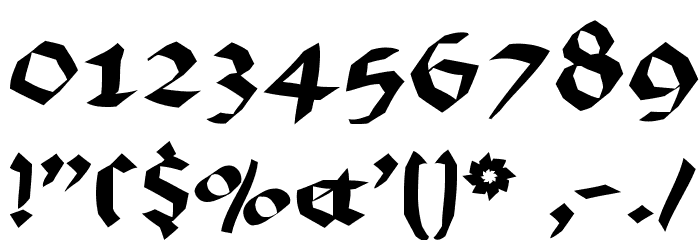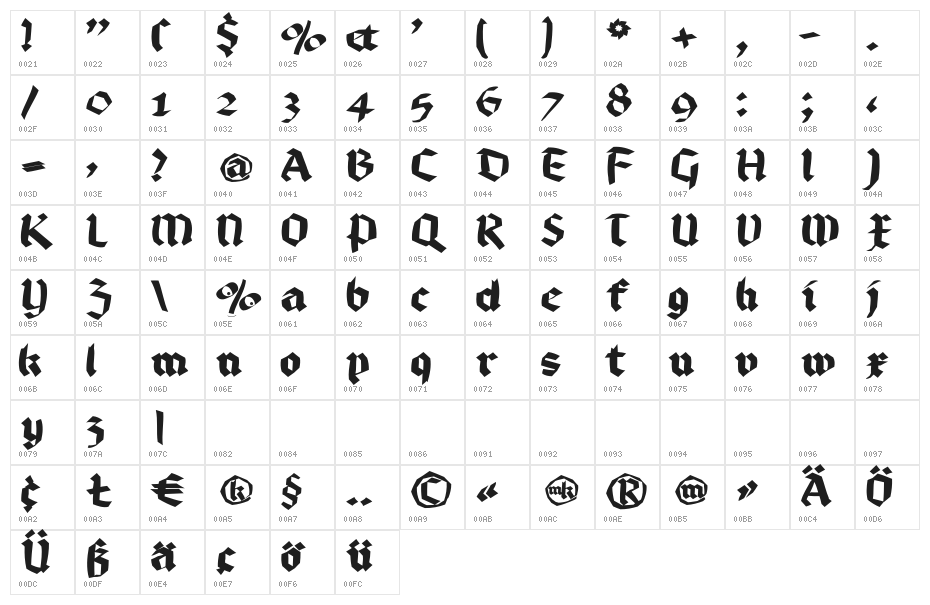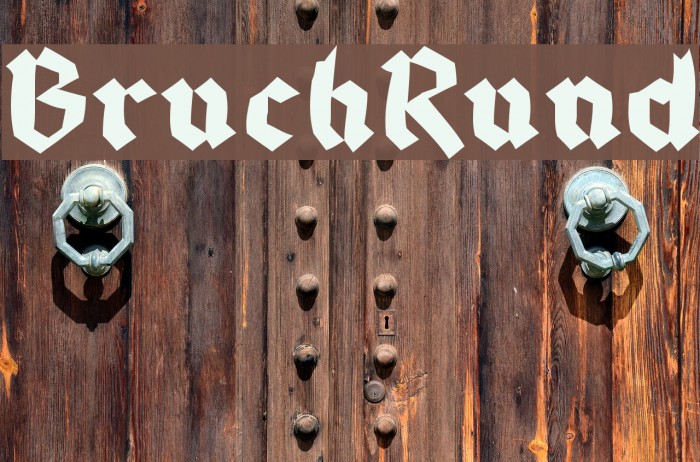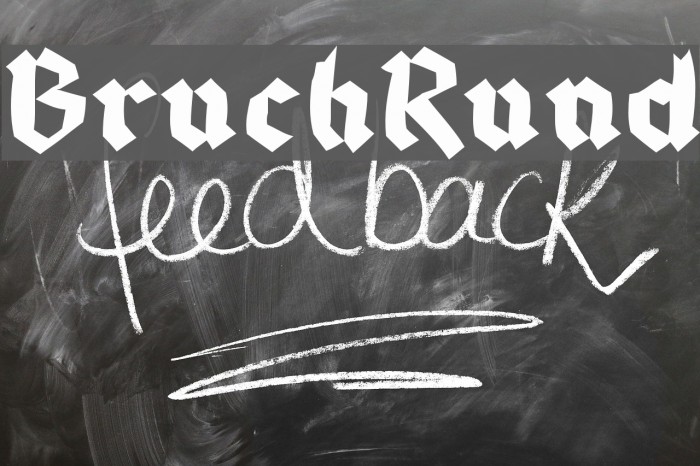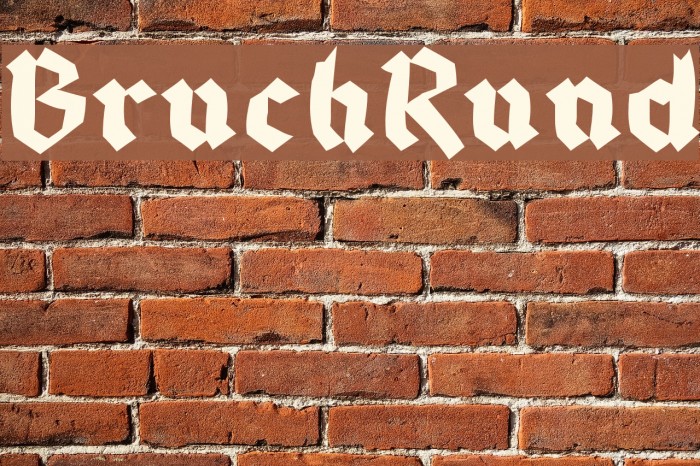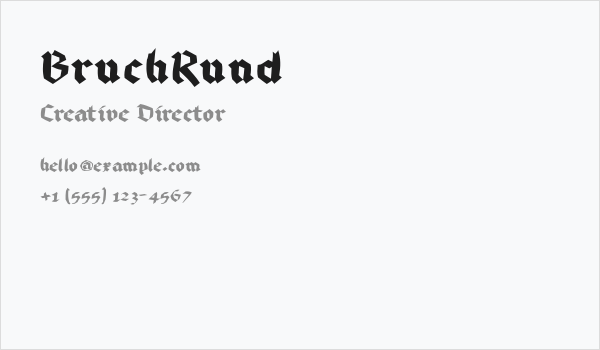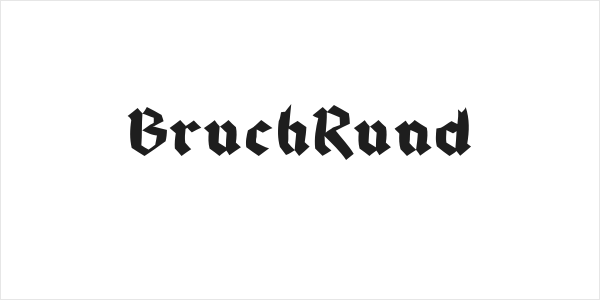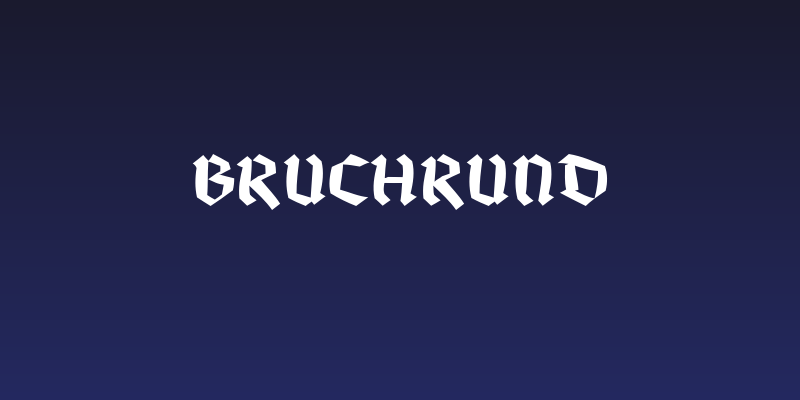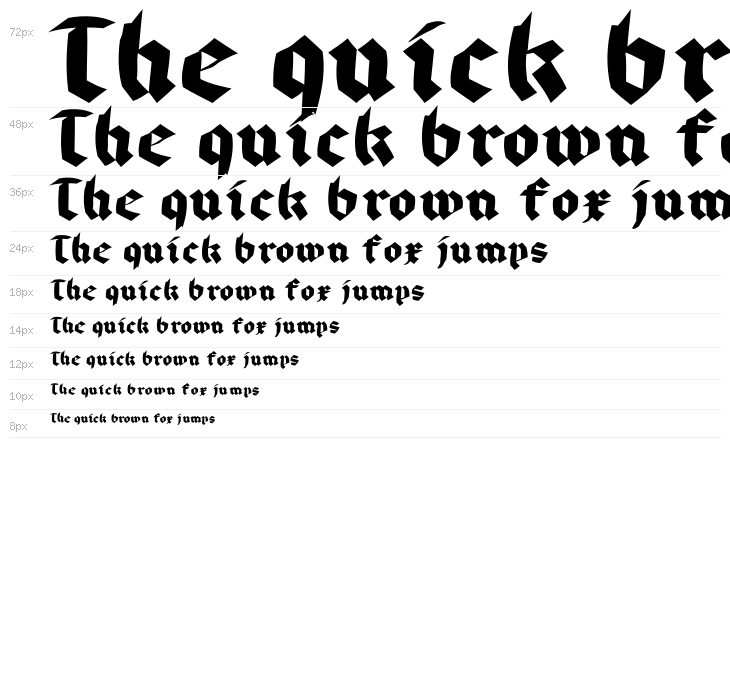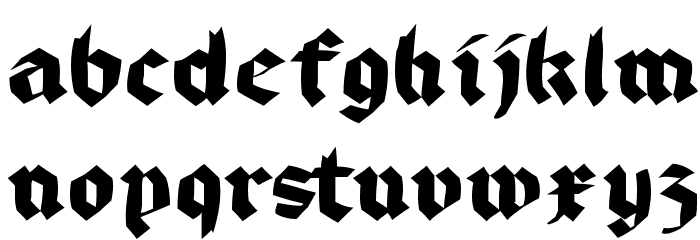
BruchRund Font
BruchRund Description
This font features a bold and striking blackletter style, characterized by its sharp, angular strokes and dramatic presence. The uppercase and lowercase letters exhibit a traditional Gothic influence, with intricate details and a strong emphasis on vertical lines. The numerals and special characters maintain the same boldness, ensuring consistency across all elements. This font's unique style is reminiscent of medieval script, making it ideal for projects that require a historical or formal aesthetic.
| Use Case | Logos, Headlines, Decorative purposes |
| Proposed Projects | Ideal for historical documents, formal invitations, branding for vintage-themed products, or any project requiring a medieval aesthetic. |